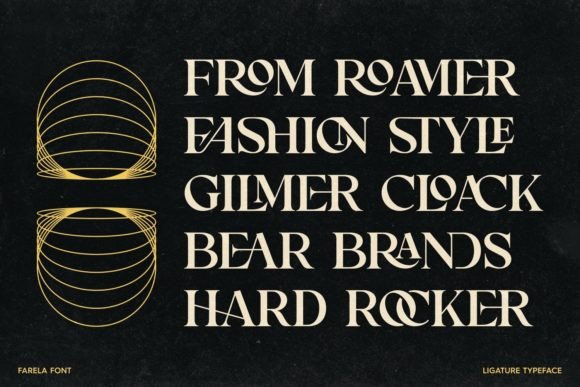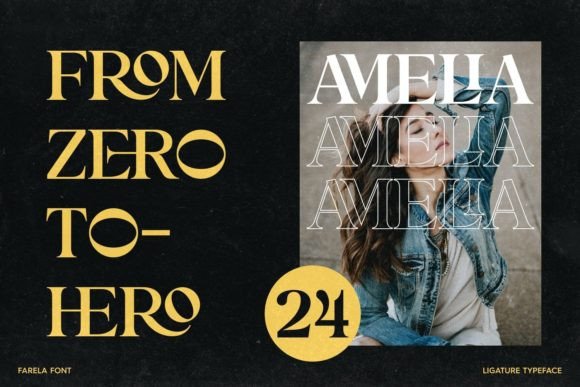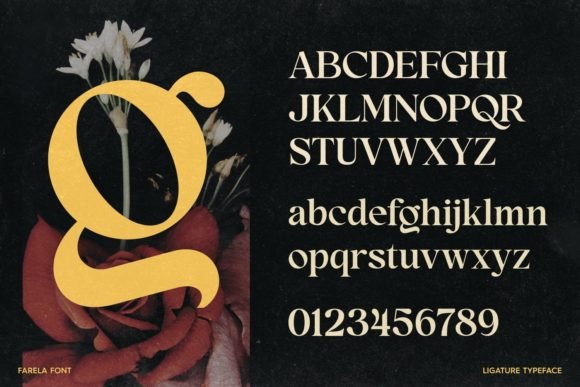
Introduction to Farela Font
The Farela font is a serif ligature font that has an attractive elegant appearance.
You can use this font in vintage, classic, and retro designs This font gives a beautiful, classy and luxurious feel to your designs.